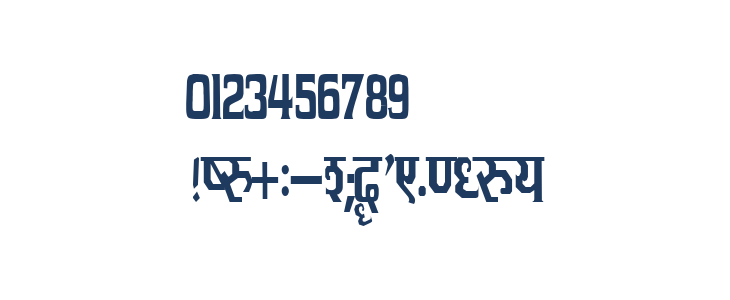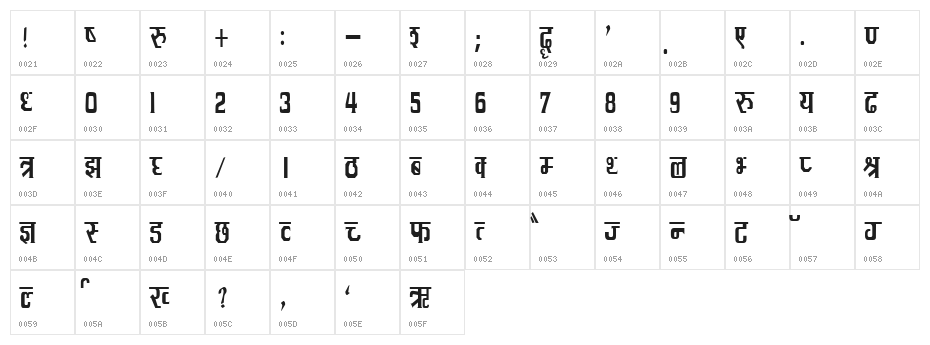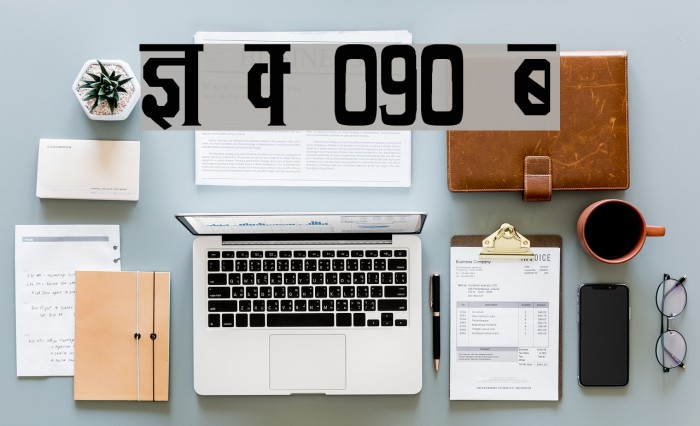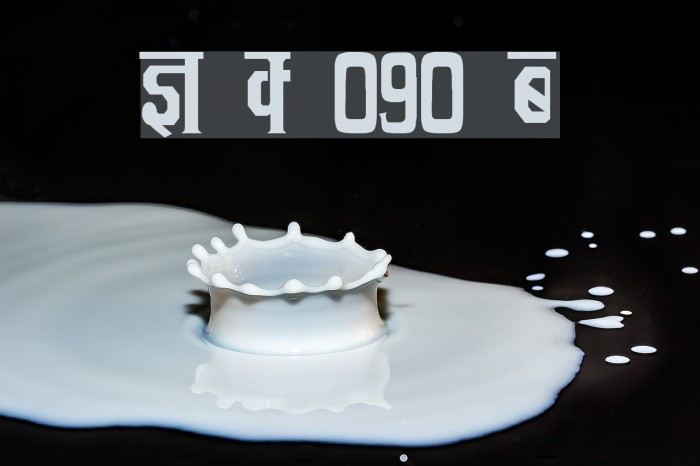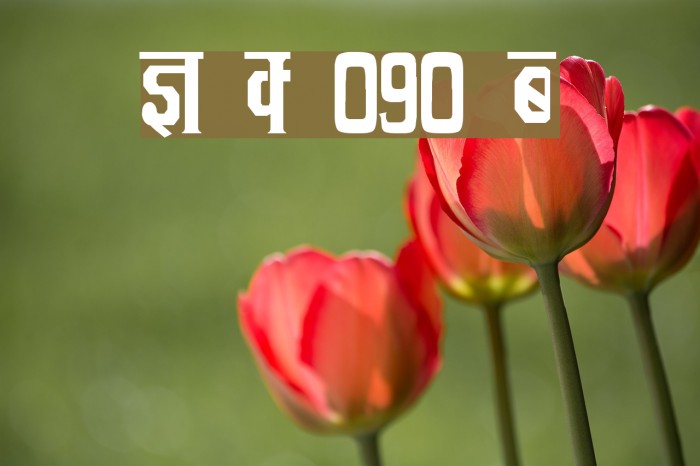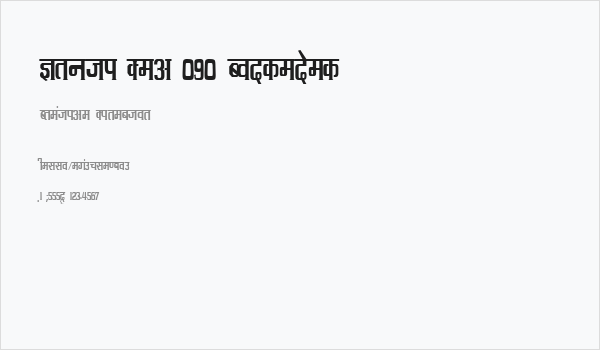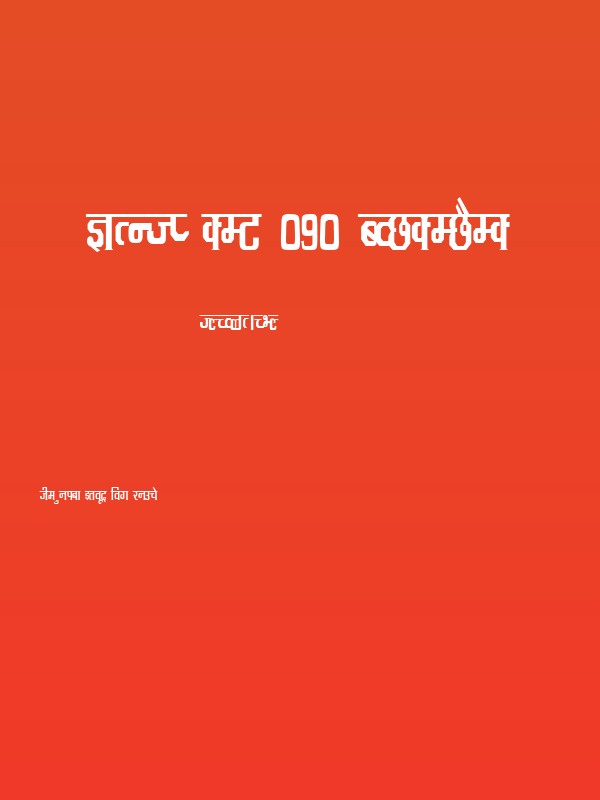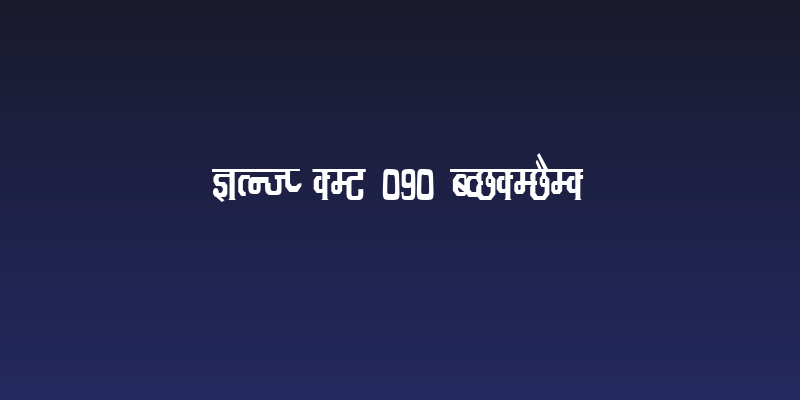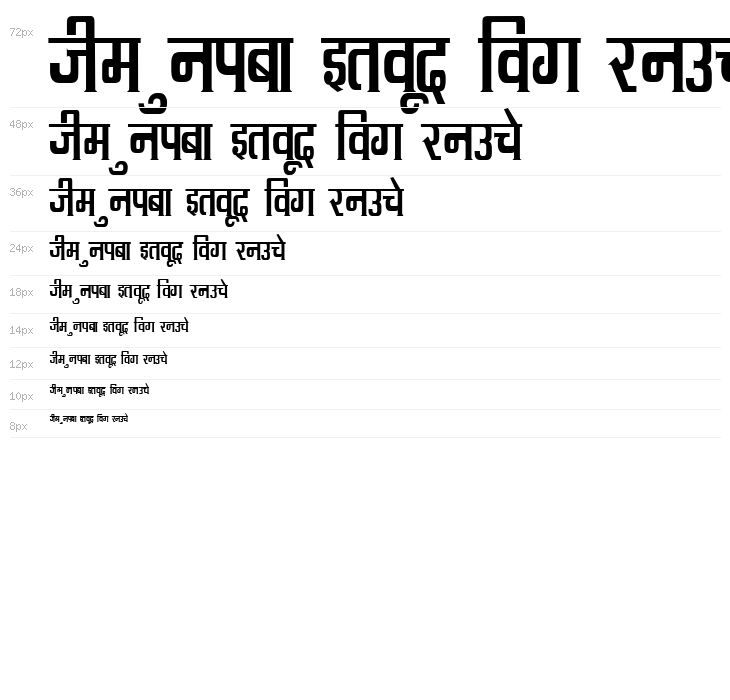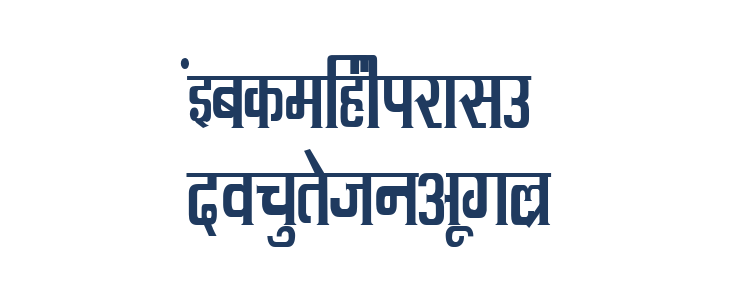
Kruti Dev 090 Condensed Font
Kruti Dev 090 Condensed Description
This font features a distinct Devanagari script style with a condensed structure, making it suitable for compact text settings. The characters are bold and have a geometric design, with sharp angles and clean lines that enhance readability. The numerals are clear and consistent with the overall style, maintaining the condensed and bold appearance. Special characters are integrated seamlessly, providing a cohesive look across all elements. The font's design is both functional and aesthetically pleasing, making it versatile for various applications.